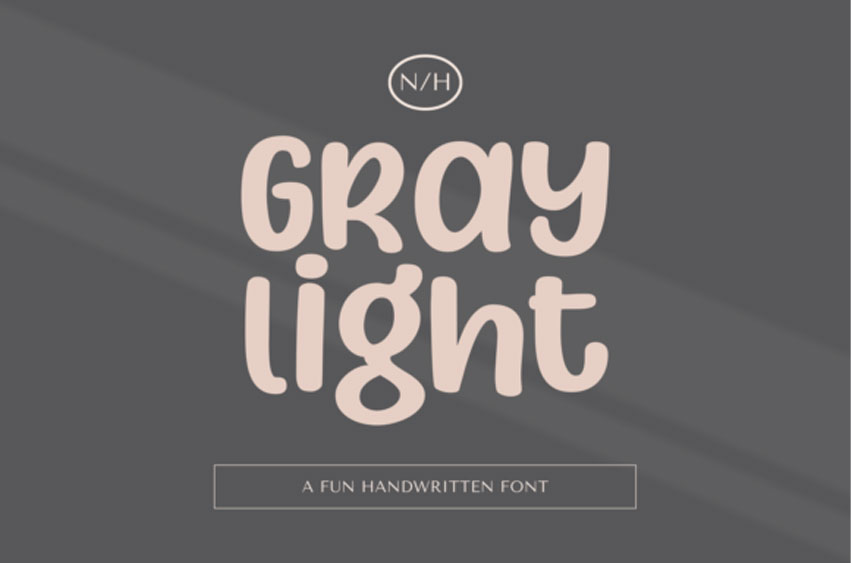
Gray Light Font
Gray Light Font is a fun and friendly brushed display font.
Whether you’re looking for fonts for Instagram or calligraphy scripts for DIY projects, this font will turn any creative idea into a true piece of art!